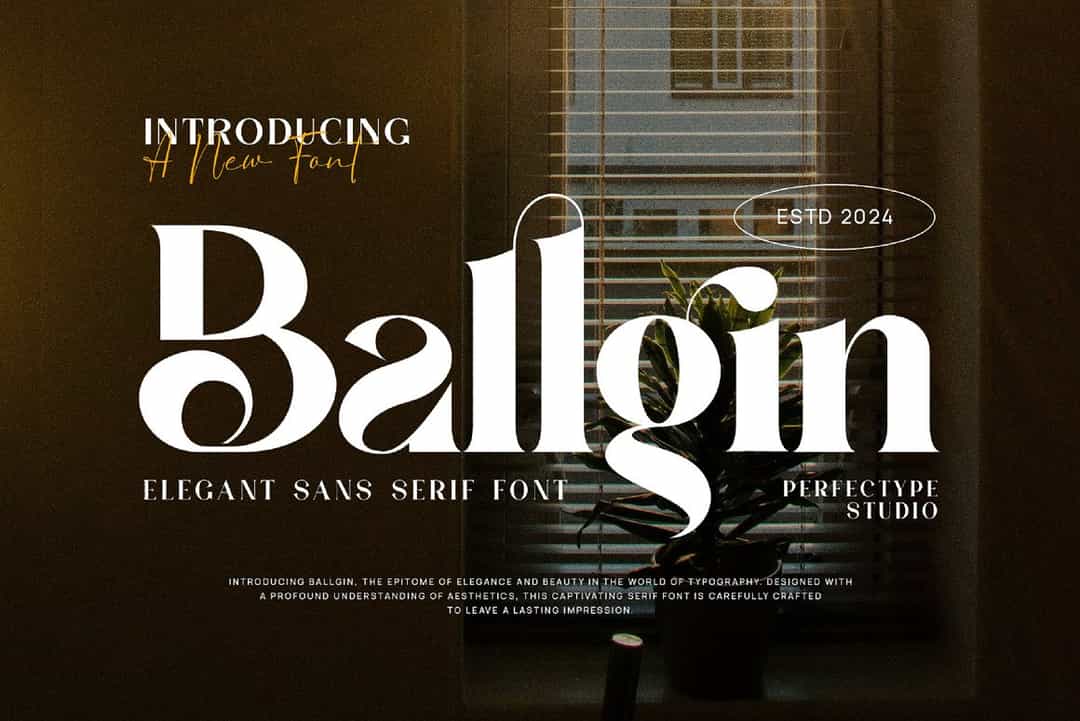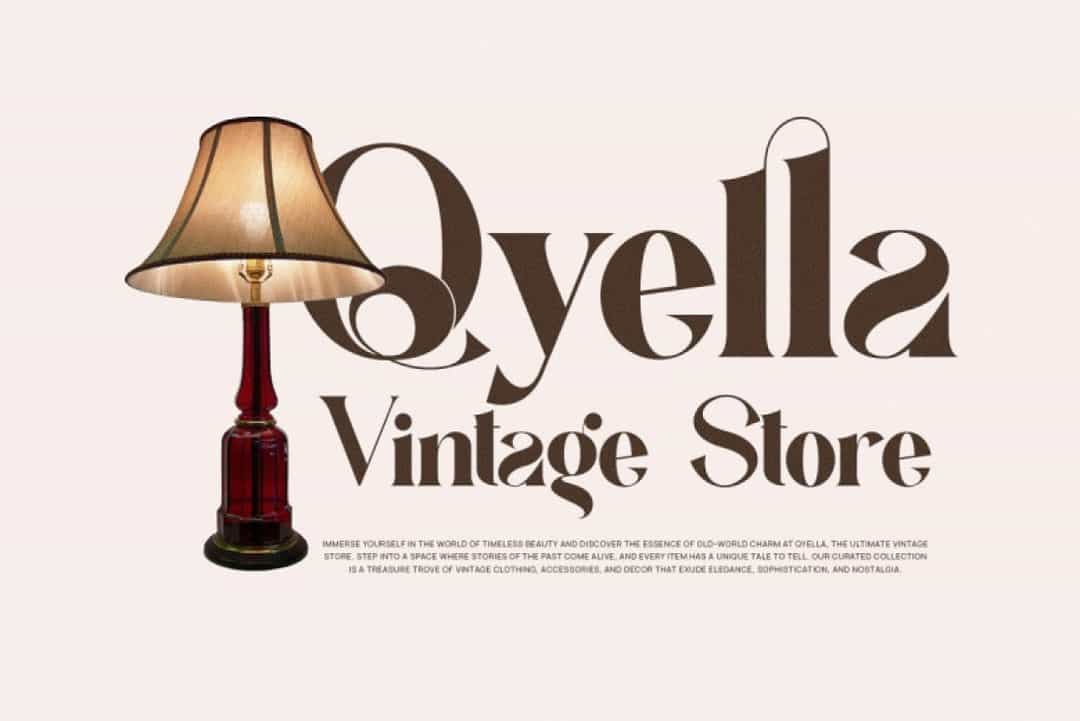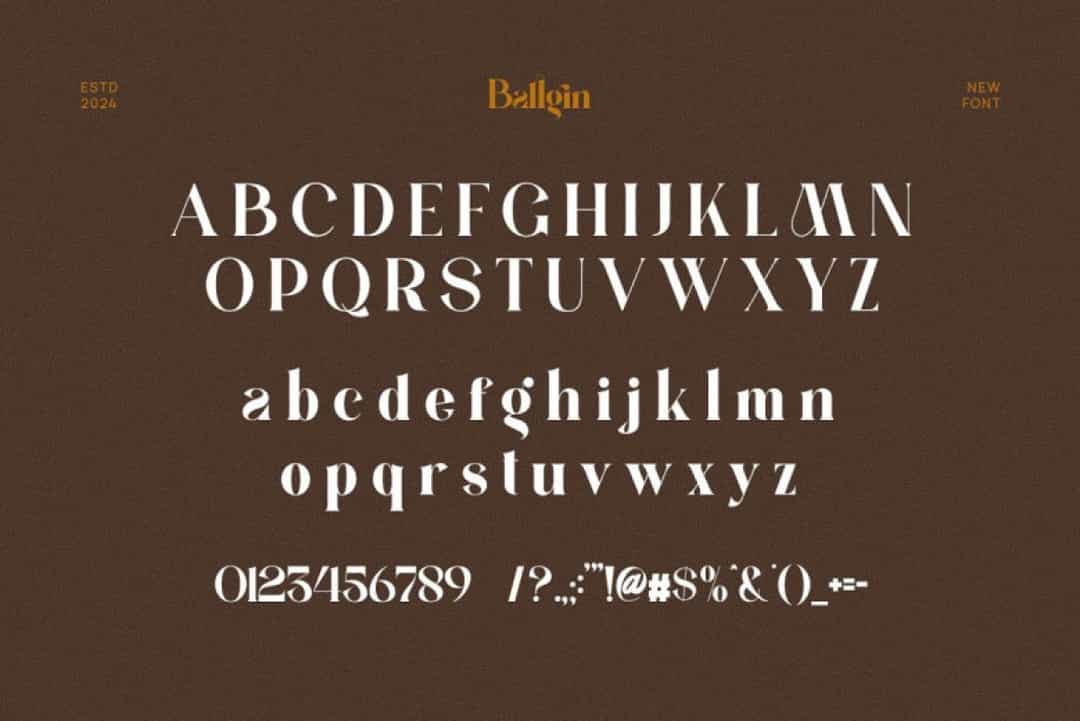
Discover Ballgin Font, part of the Serif collection—a versatile and unique font perfect for adding a personal touch to your projects. Download it for free and enjoy crafting designs with style, from invitations to social media posts. This font is available exclusively for personal use, giving you the freedom to create without limits. Unlock your creativity with Ballgin Font today!
Ballgin can be described as a contemporary yet stylish serif typeface, ideal for logos, branding, wedding designs and social media posts. Furthermore, this font can also be used for product ads packaging designs labels photography watermark invitations stationery projects as well as logo design work and photography watermarks invitations stationery designs that require easy reading fonts.